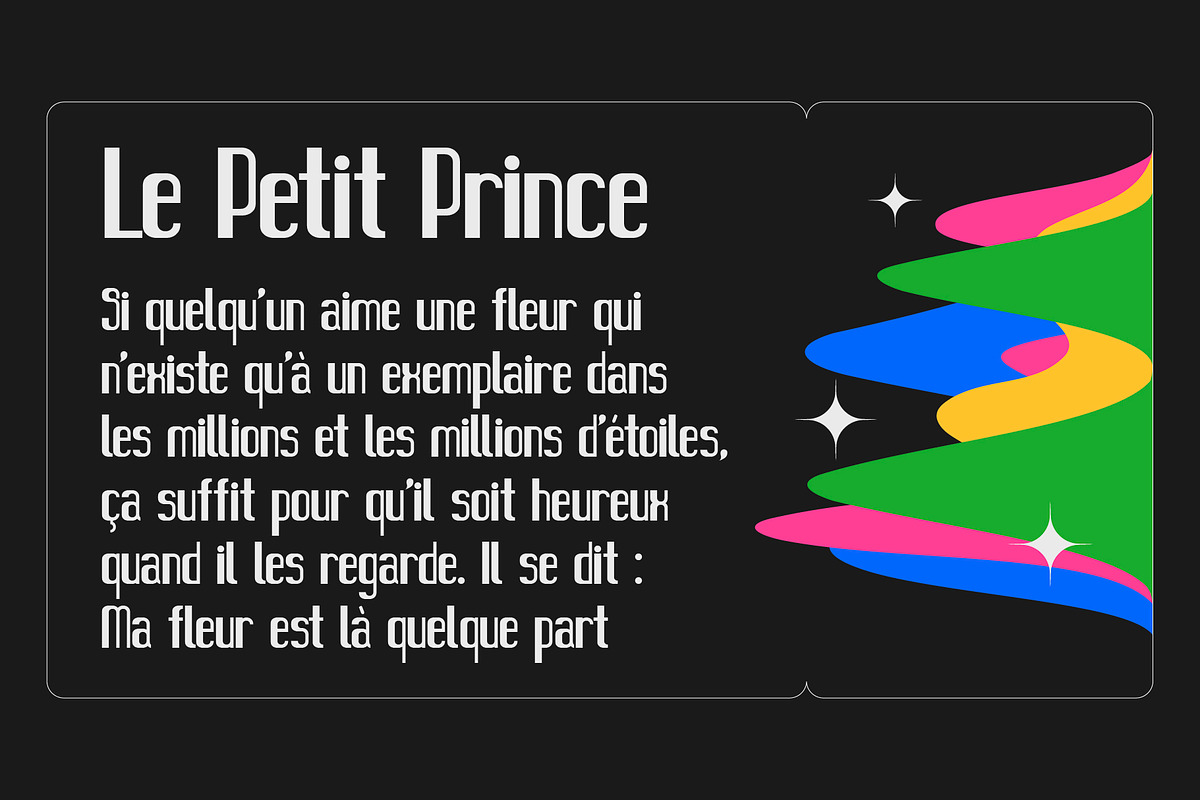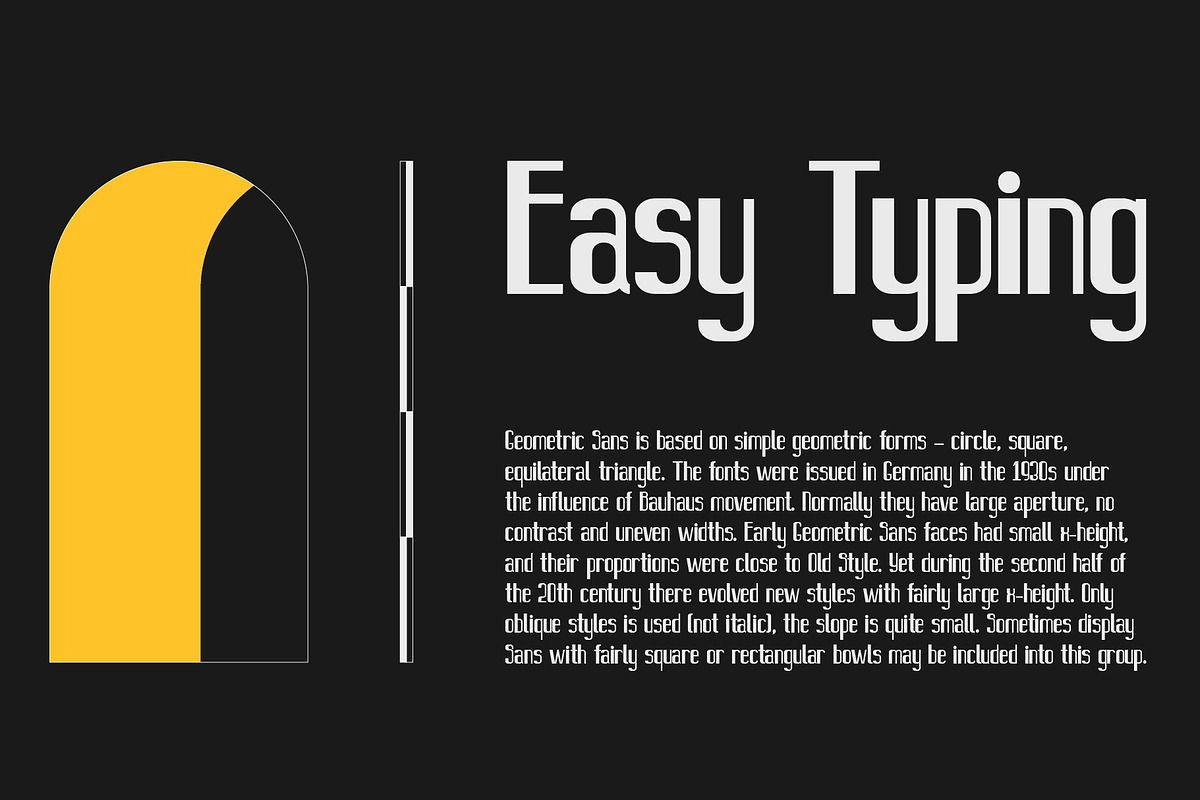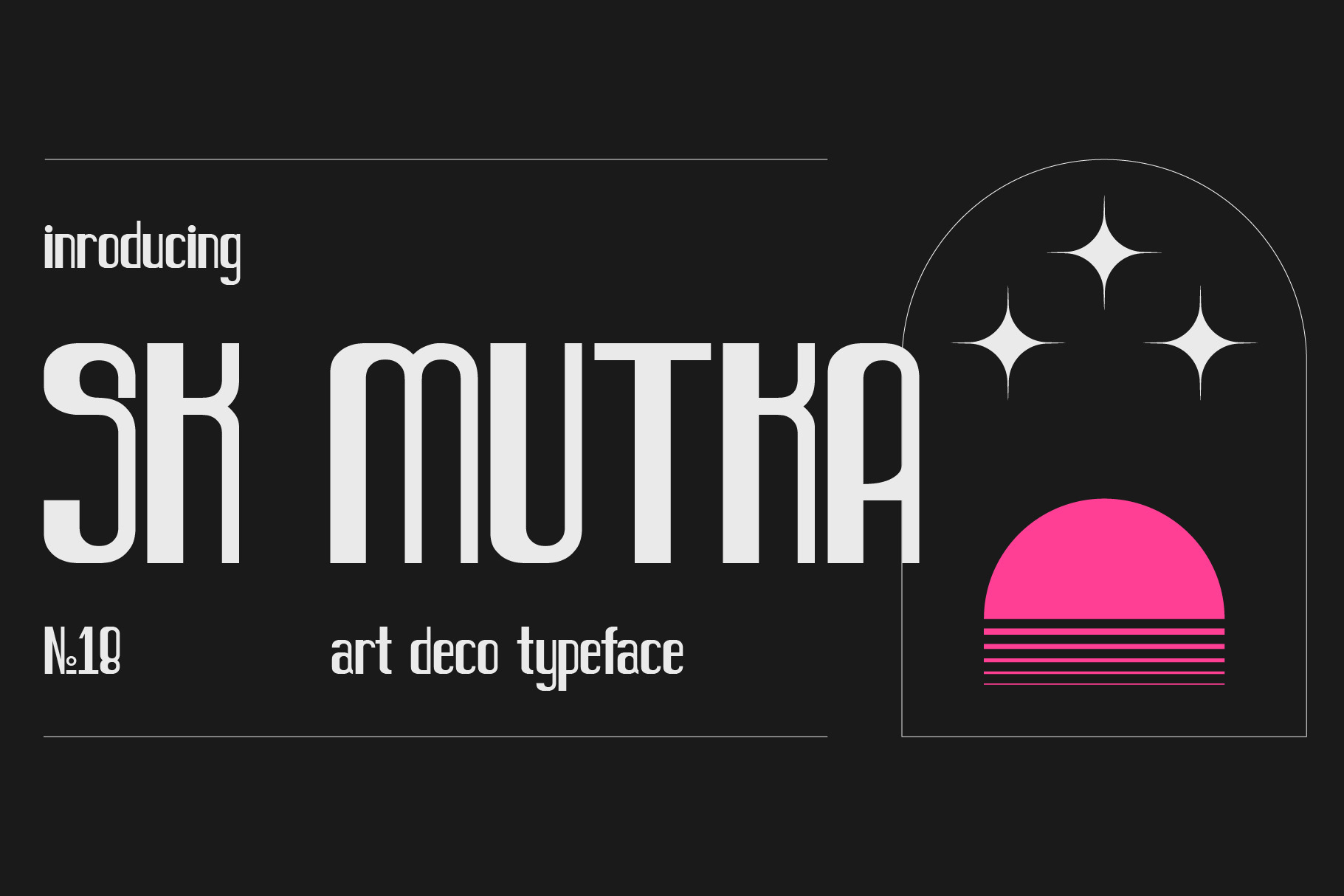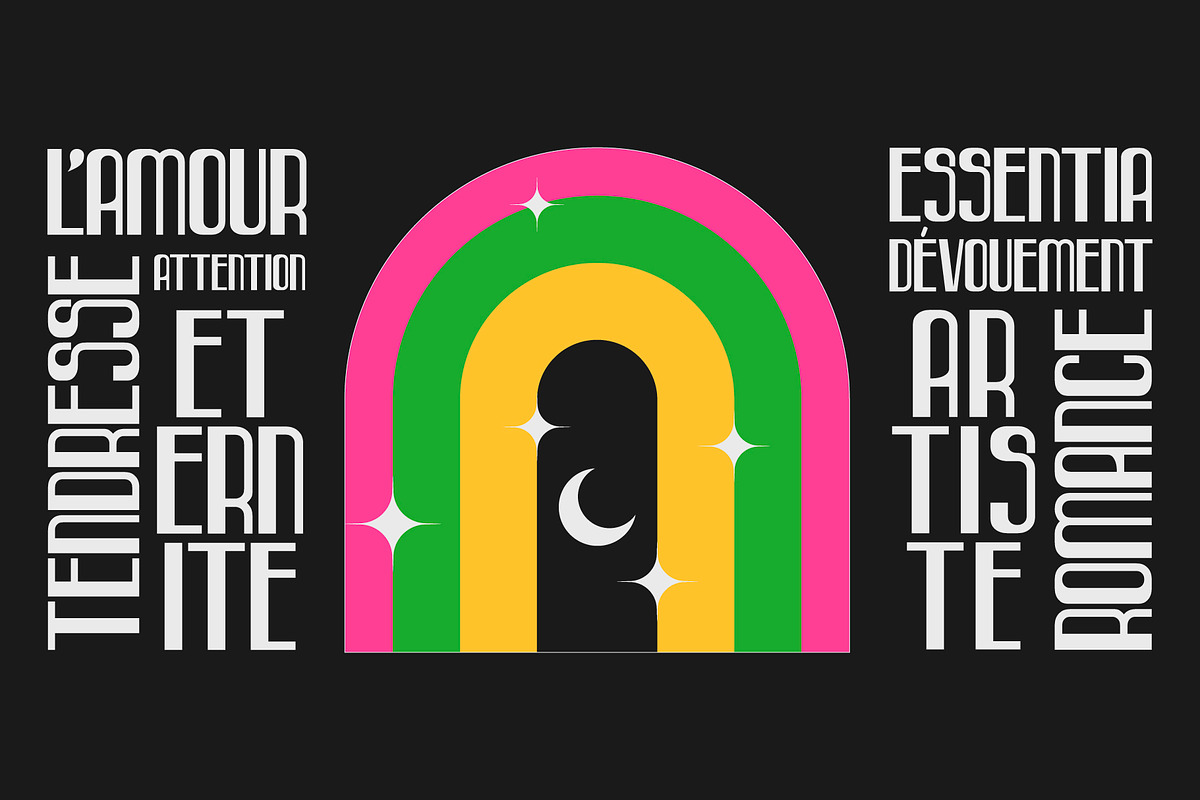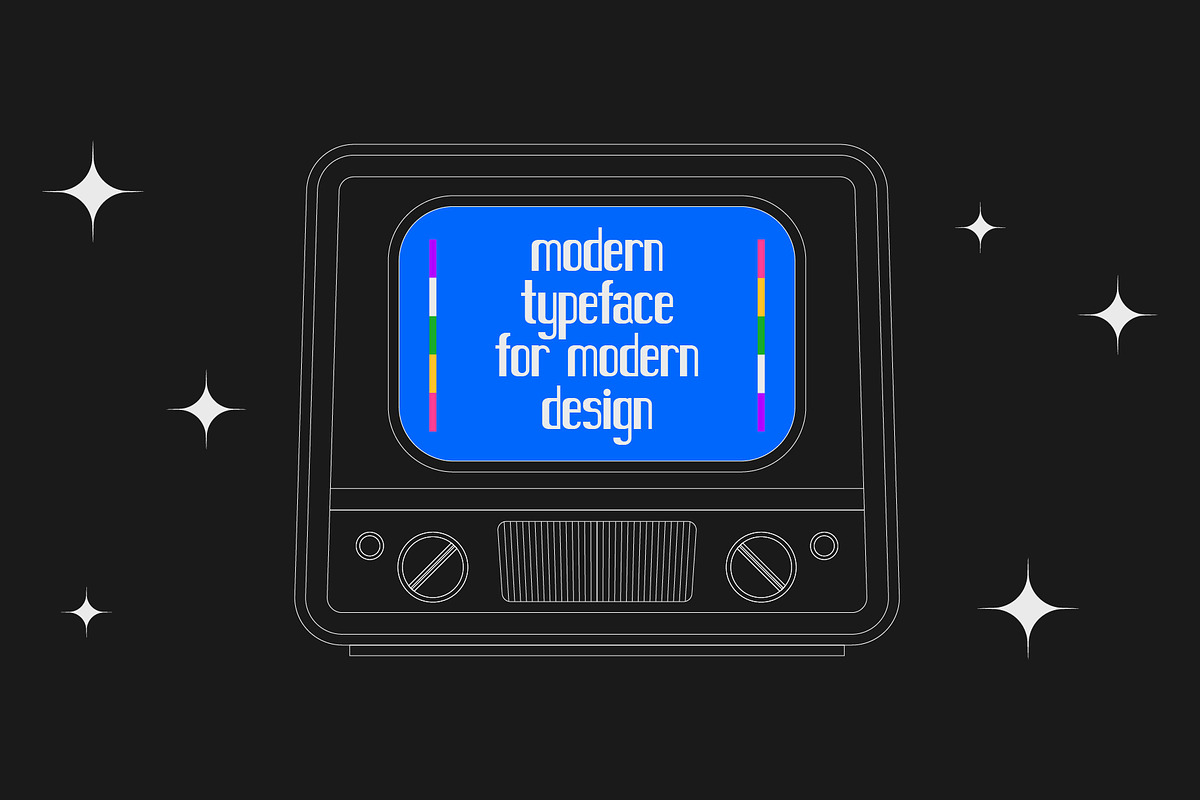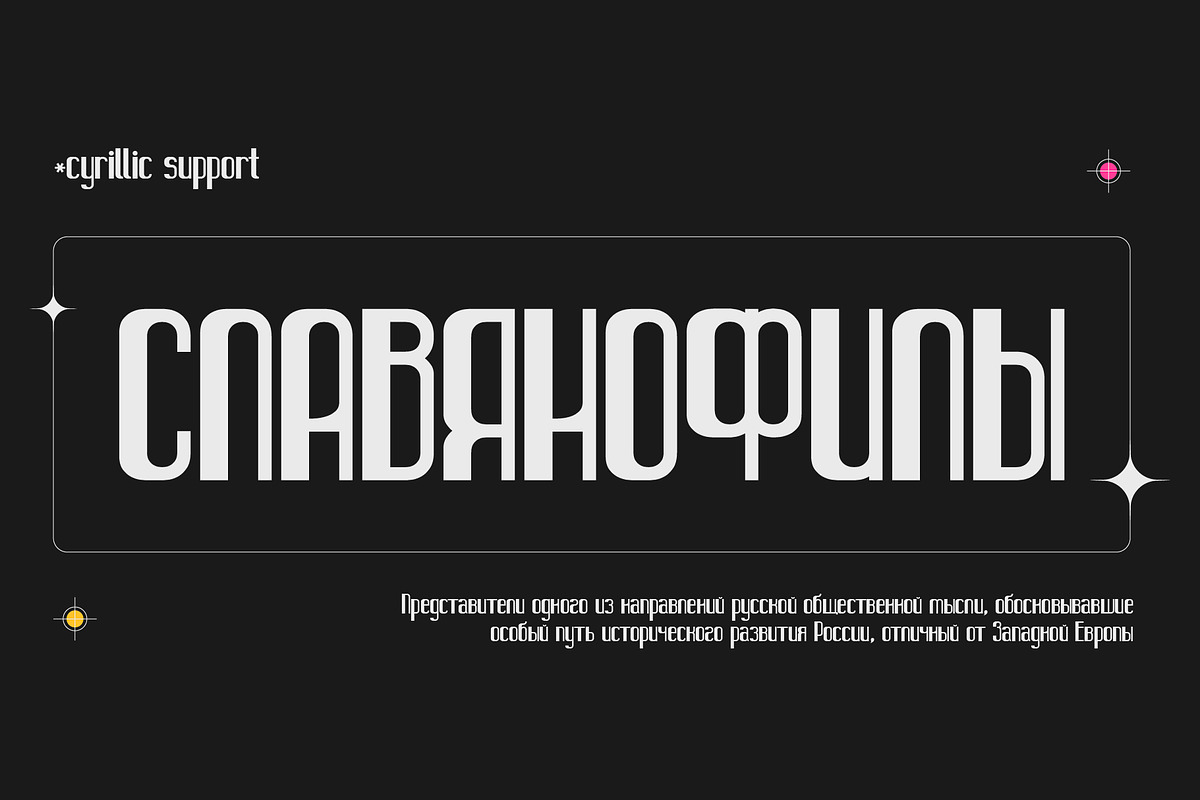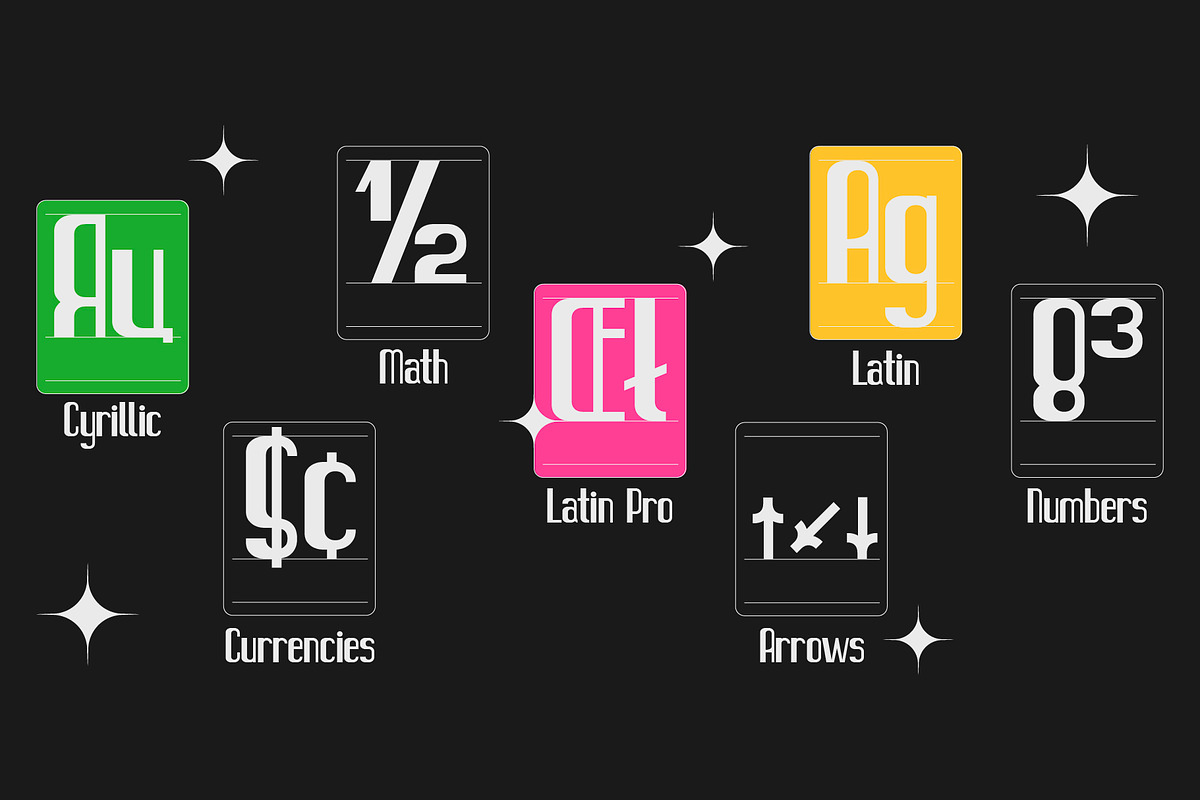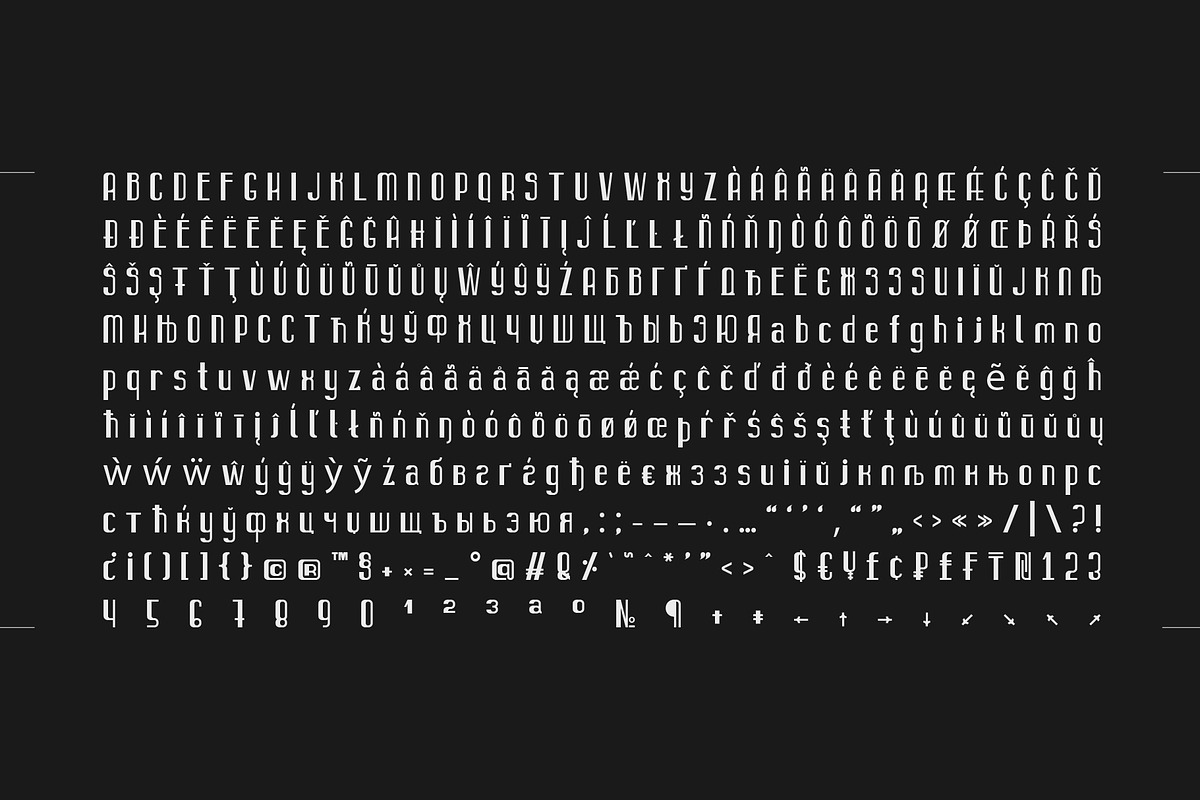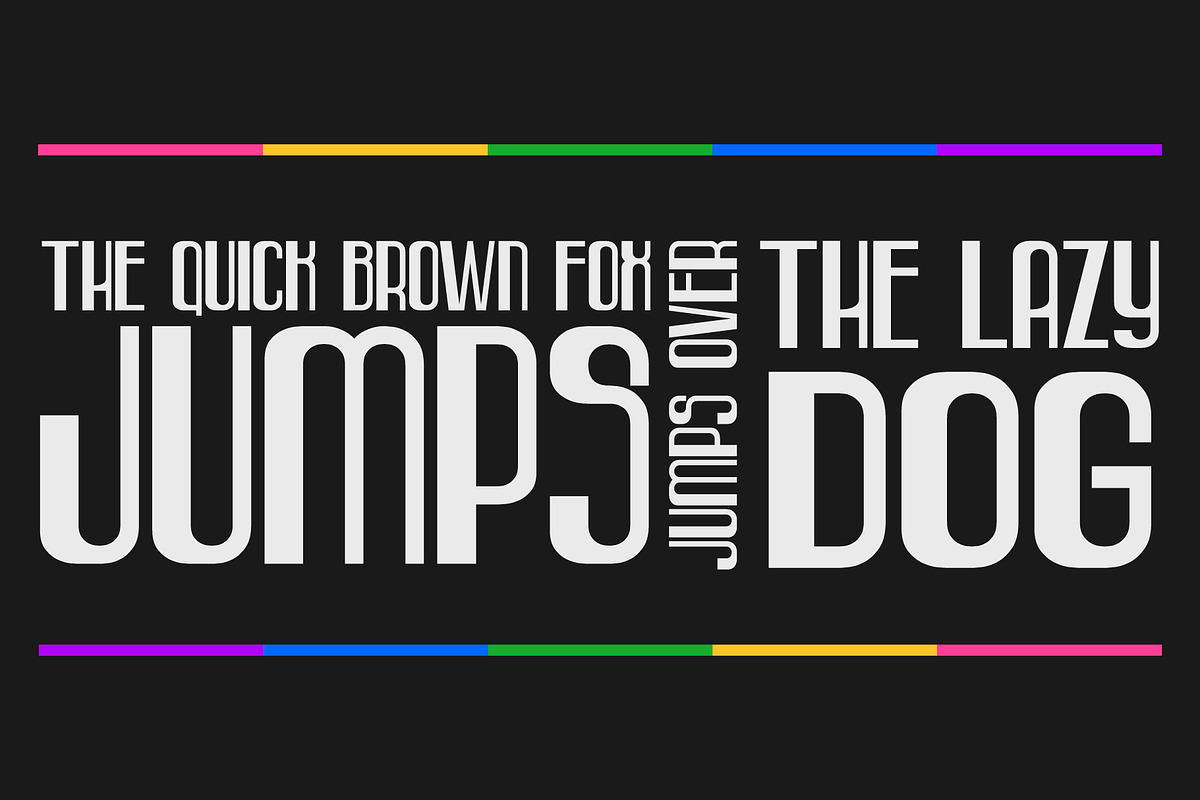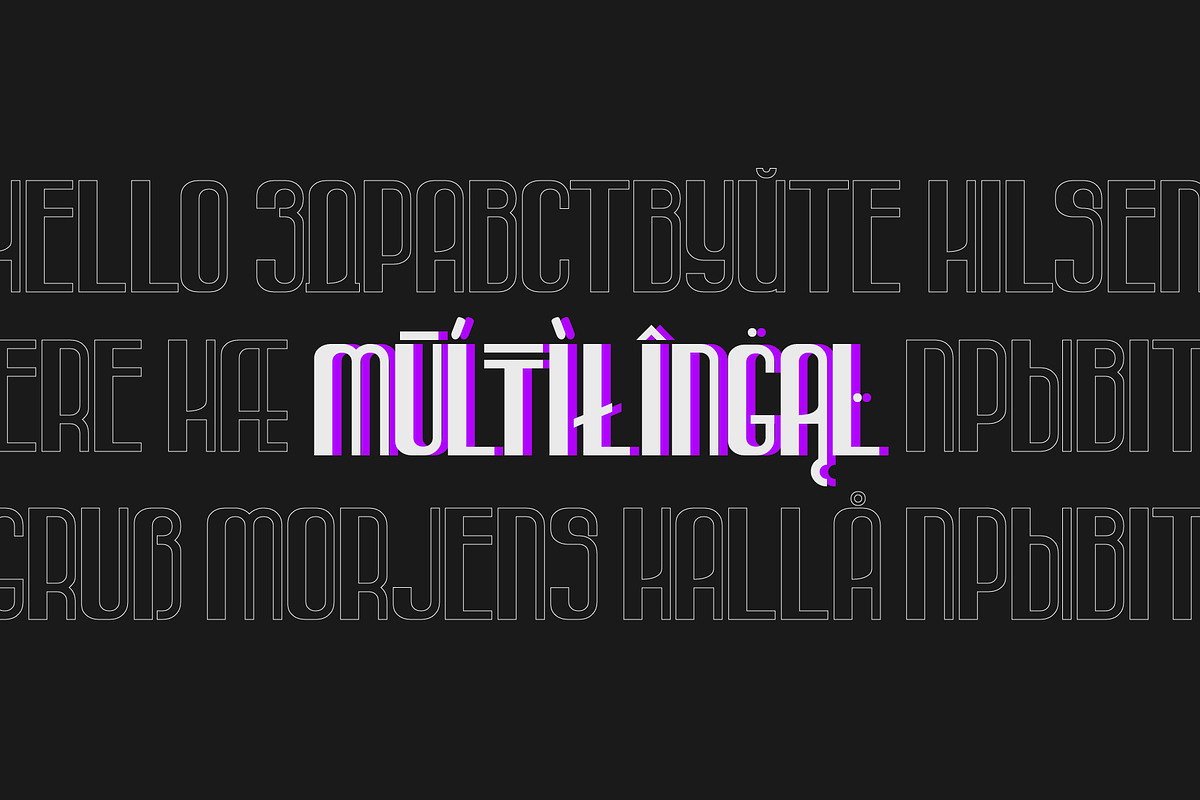
SK Mutka — Display Art-Deco Font
SK Mutka is a geometric sans serif made in the style of Art Deco. Its graceful forms are emphasized by the arched structure typical for the style and spirit of Art Deco. The typeface is suitable both for decorative work and for typing because it includes uppercase and lowercase. Moreover, it supports a wide language range. SK Mutka typeface supports extended Cyrillic, Latin, as well as an extensive character set. SK Mutka is perfect for bold and classic designs, for print and web works.